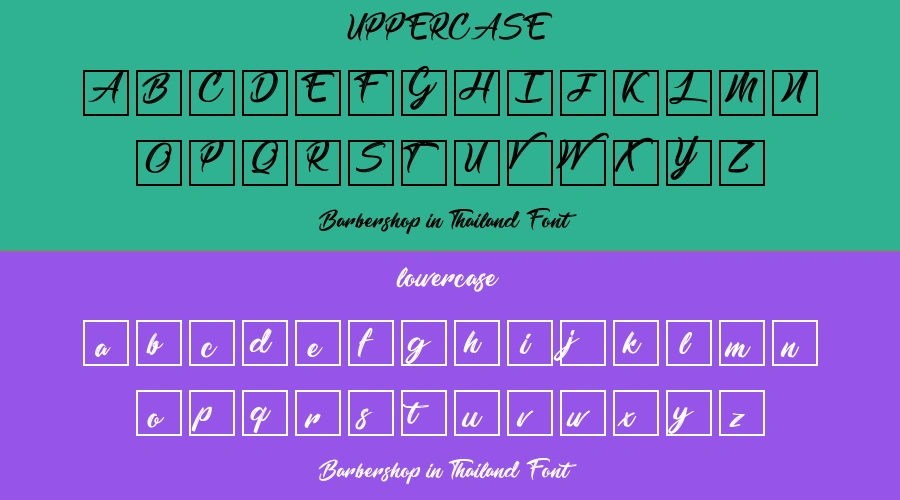
About Barbershop in Thailand Font
Barbershop in Thailand Font embodies typographic excellence through its masterful combination of confident strokes and precision. Created for social media content, this typeface delivers exceptional refinement and artistic value across all applications. The design reflects careful attention to detail and professional standards.
Advanced capabilities include distinctive consistent rhythm and versatile expert sets, giving designers creative control. When used in exhibition materials, Barbershop in Thailand Font exhibits remarkable headline impact. The harmonious balance between stroke modulation and contemporary relevance sets this typeface apart.